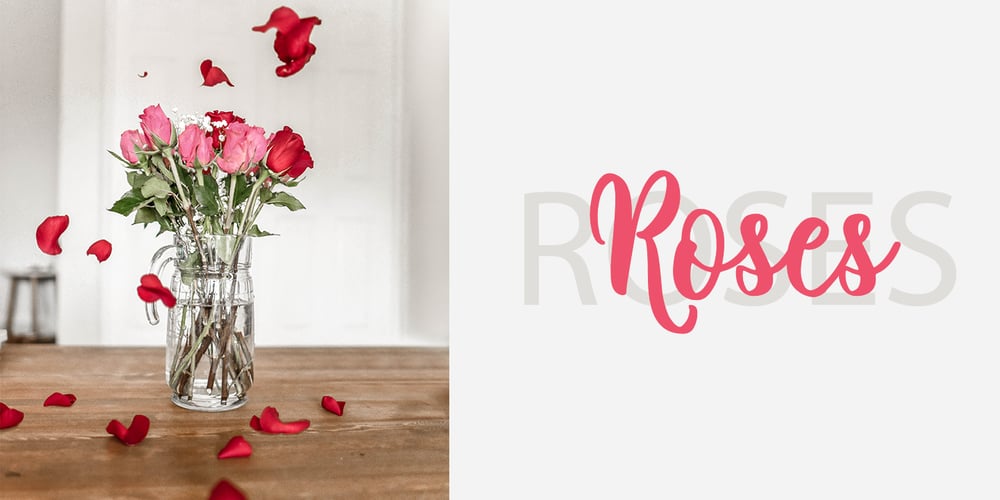
Mignon
Mignon font
Mignon Font Family was designed by Dmitrii Chirkov and published by Supfonts. Mignon contains 2 styles and family package options. My new font is beautiful and smooth modern calligraphic script with a straight baseline. And I also added a separate font with cute swashes at the beginning and at the end. You do not need special software, everything works simply and clearly 🙂 Mignon will look beautiful on Christmas and holiday invitations, wedding invites and stationery, logos, and more. I love using it for emphasis words and pairing it with serifs. Test it out below to see how it could look for your next project! Includes: Uppercase and lowercase Numbers and punctuation Foreign language support Check out my blog: https://www.instagram.com/zloillev pinterest.com/dmitriychirkov7